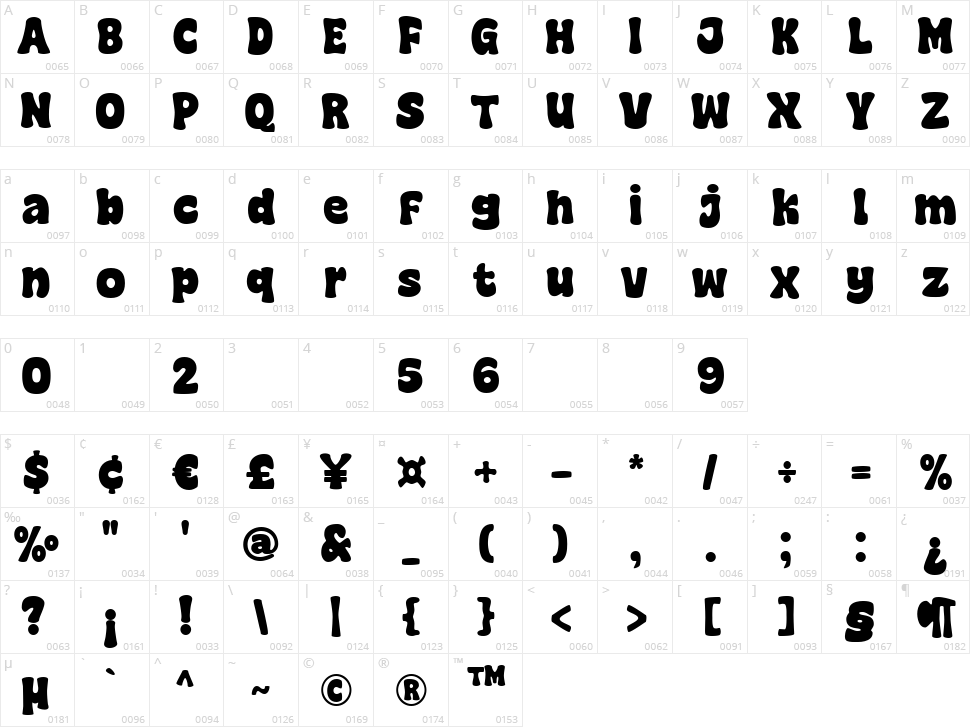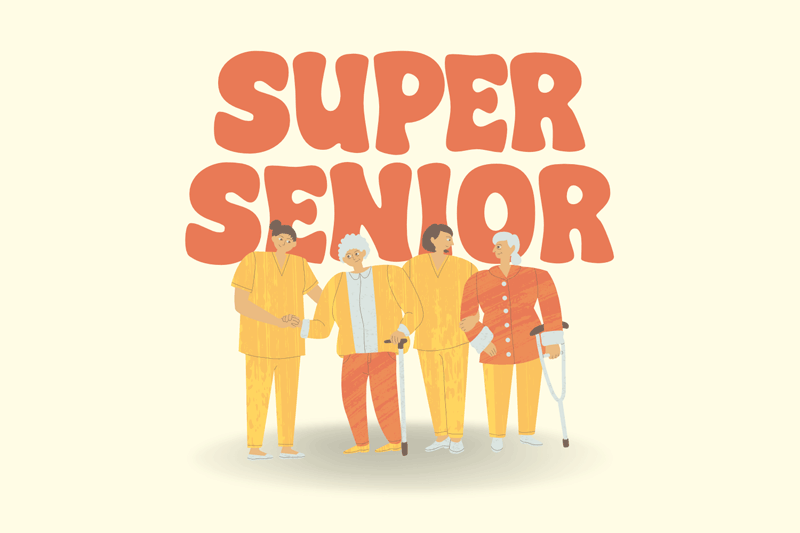
Super Senior
Super Senior: A Bold, Round & Fun Font
Super Senior bursts onto the scene with a personality as big as its characters! This bold and round font is designed to bring a touch of fun and whimsy to any project.
Super Senior: A Bold, Round & Fun Font
Super Senior bursts onto the scene with a personality as big as its characters! This bold and round font is designed to bring a touch of fun and whimsy to any project.